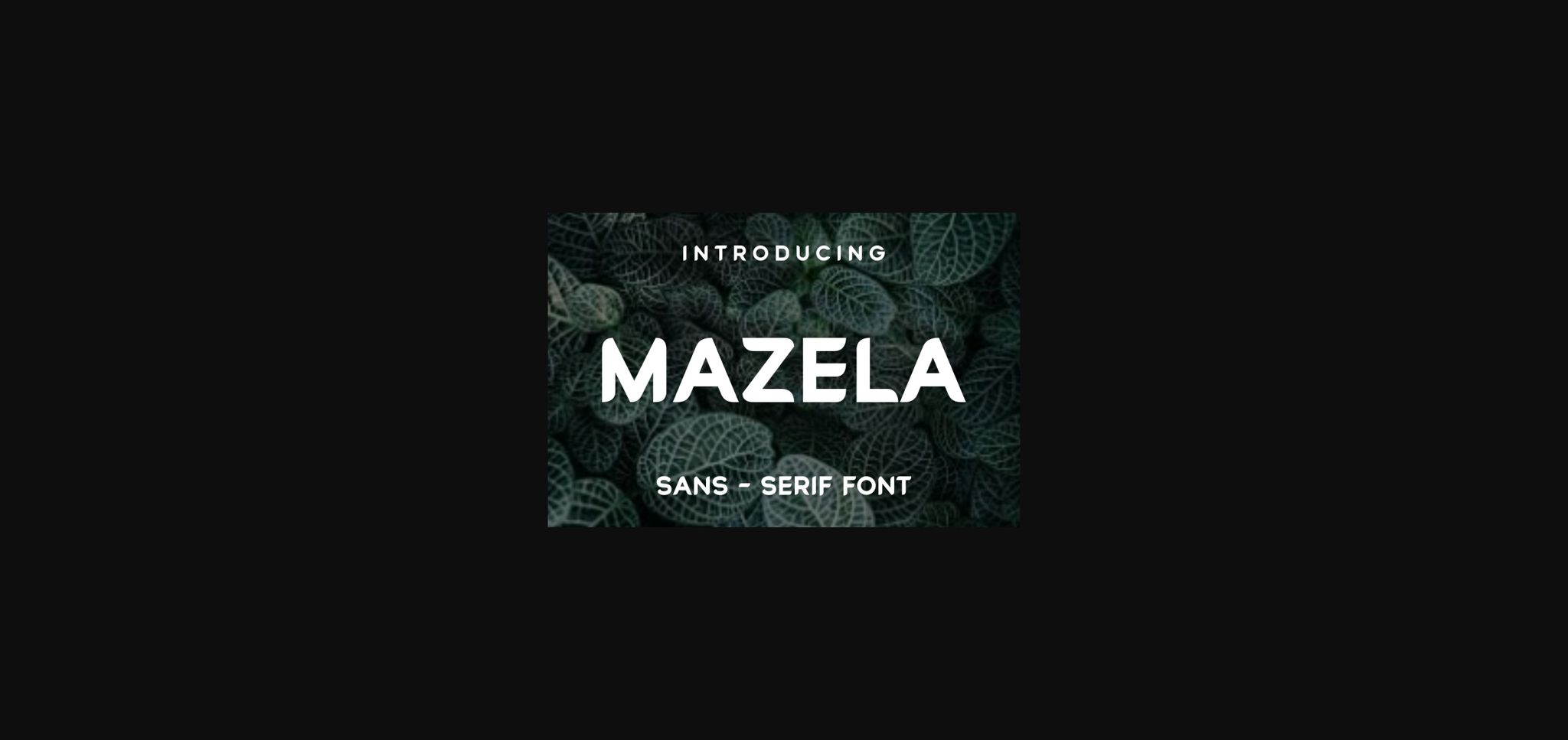
About Mazela Font
Mazela is a cool and unique sans serif font. No matter the topic, this font will be an incredible asset to your fonts’ library, as it has the potential to elevate any creation.